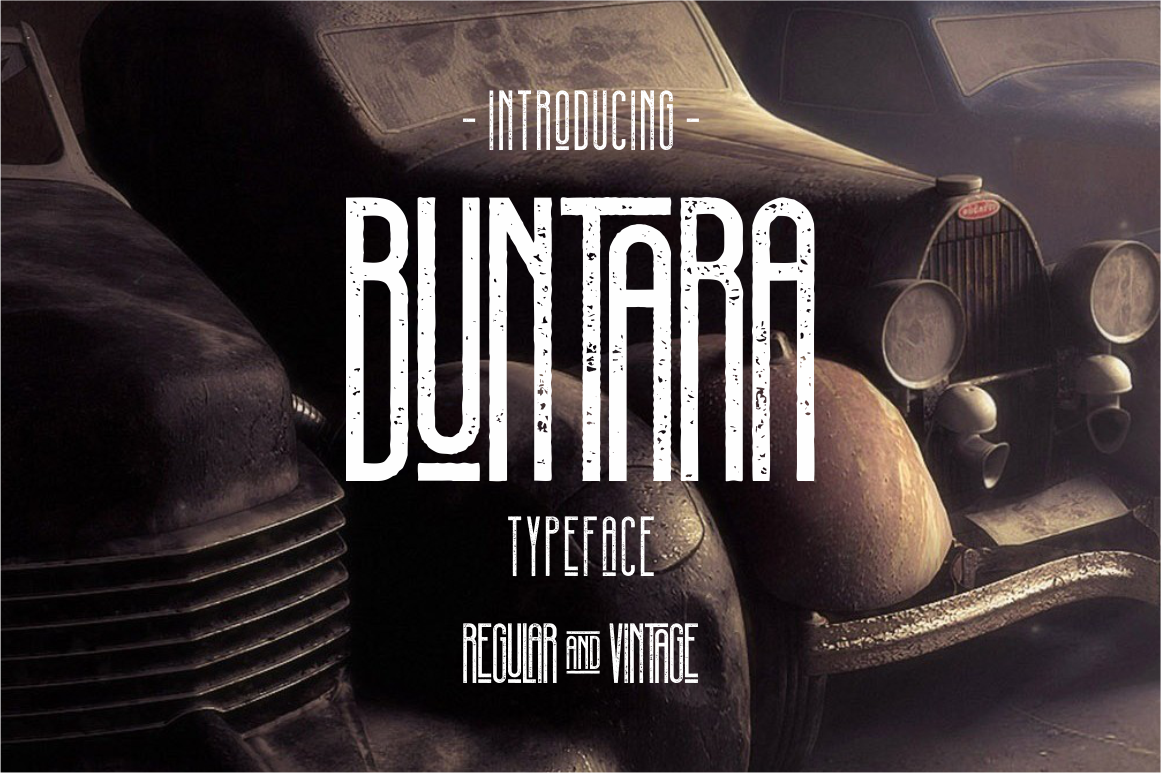
Buntara Typeface
Buntara is handmade modern vintage textured display typefaces, which is combining the style of classic typography with an modern handlettering style.